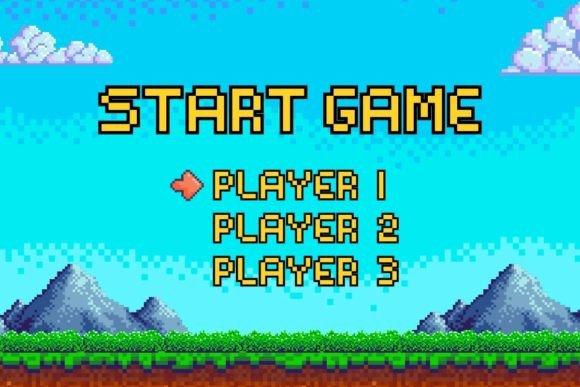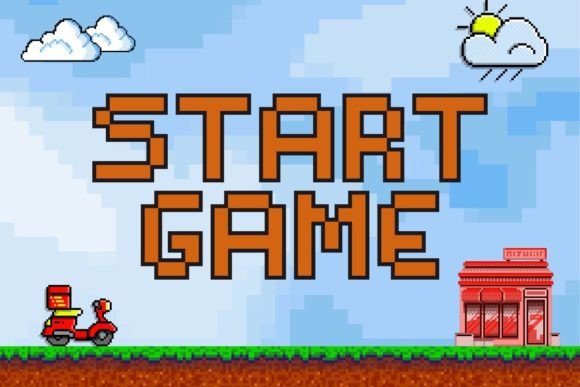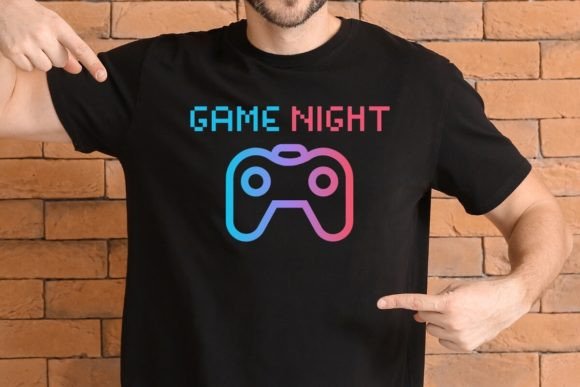
Introduction to Pixel Wonder Font
Have you ever stared at a blank canvas, feeling the creative juices coursing through your veins, but struggling to find the perfect spark to ignite your design project? That’s where the Pixel Wonder Font comes in – a game-changing display font that adds an electrifying twist to your creations.
This dynamic font is more than just a design resource; it’s a key to unlocking a world of innovation and imagination. With its bold, daring characters, Pixel Wonder Font is the perfect match for those projects craving a distinctive and vivacious style. Whether you’re working on a high-quality graphic design or a free download project, this font is sure to infuse a delightful and inventive spark into your creative journey.
Key Features of Pixel Wonder Font
- Unique pixel art design with a transparent background, perfect for creative projects that require a high-quality design resource.
- High-resolution font with a resolution of 1024 x 1024 pixels, ensuring crisp and clear display on various screens and devices.
- Includes a wide range of characters, including uppercase and lowercase letters, numbers, and special symbols, making it a versatile design resource.
- Pixel Wonder Font is ideal for graphic designers, artists, and digital creatives looking for a unique and eye-catching design element for their creative project.
- With its high-quality design and transparent background, Pixel Wonder Font can be easily combined with other design elements to create a stunning visual effect.
Honest Review: Pixel Wonder Font
I recently stumbled upon the Pixel Wonder Font and I’m excited to share my thoughts on this design resource. As a designer, I’m always on the lookout for high-quality fonts that can elevate my creative projects.
- Works well with transparent backgrounds, allowing for a seamless design experience
- High-quality font that’s perfect for creative projects
However, I do have a few limitations to mention: ⚠️ The font is not suitable for large-scale text, as it can become pixelated and difficult to read. ⚠️ The character set is limited, which may not be ideal for designers who need to use special characters or symbols.
Overall, I’m impressed with the Pixel Wonder Font and would definitely recommend it to designers who are looking for a unique and high-quality design resource. With a little creativity, this font can add a fun and retro touch to any project.
To get the most out of Pixel Wonder Font, use it with a transparent background to create a unique, pixelated effect. You can also combine it with other design resources, such as graphics and images, to create high-quality designs.
Pixel Wonder Font is commonly used in creative projects, such as graphic design, digital art, and video game design. It’s also a popular choice for designers who want to add a retro touch to their designs. With its high-quality, pixelated look, Pixel Wonder Font is a great design resource for anyone looking to create unique and eye-catching designs.